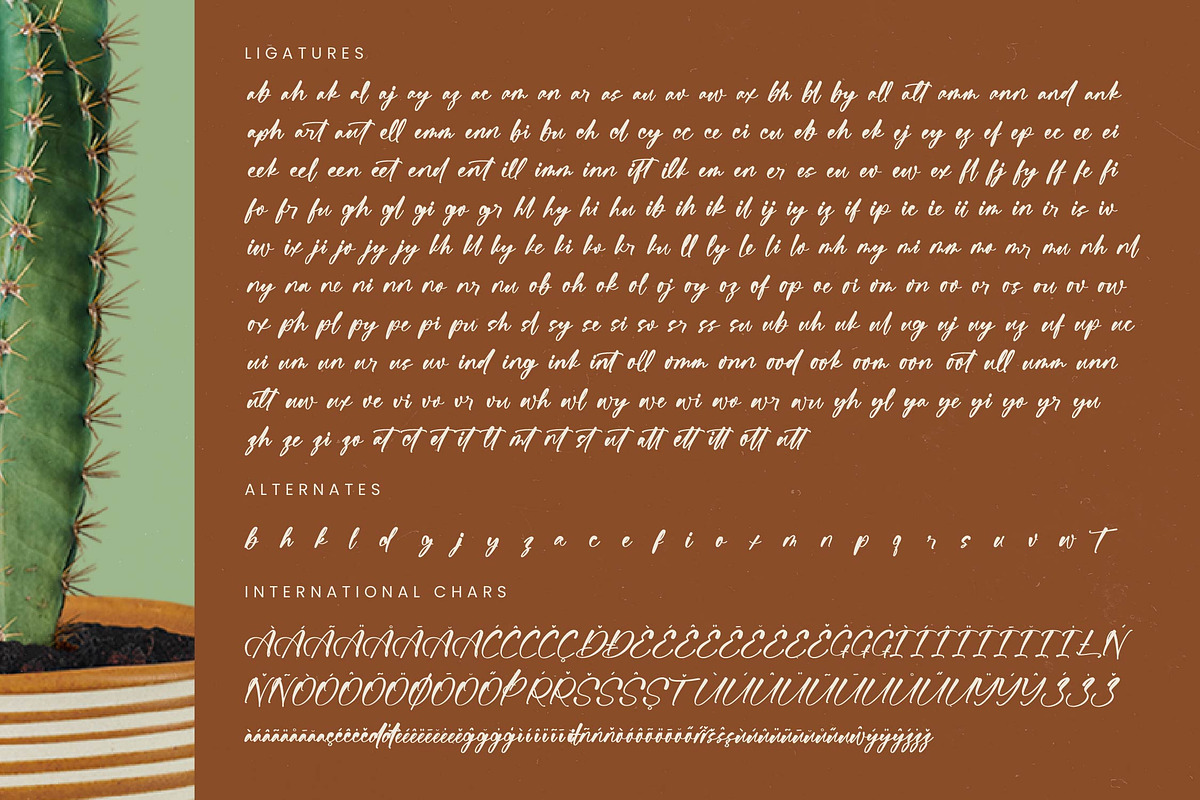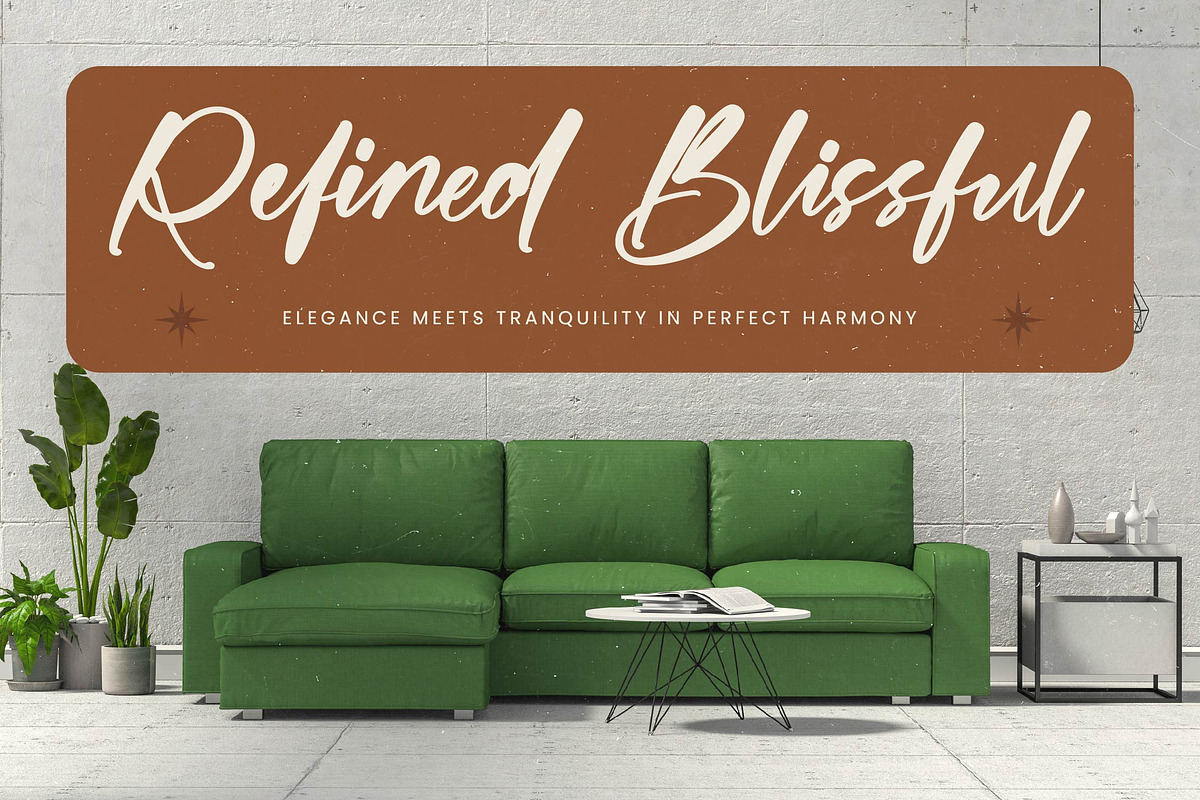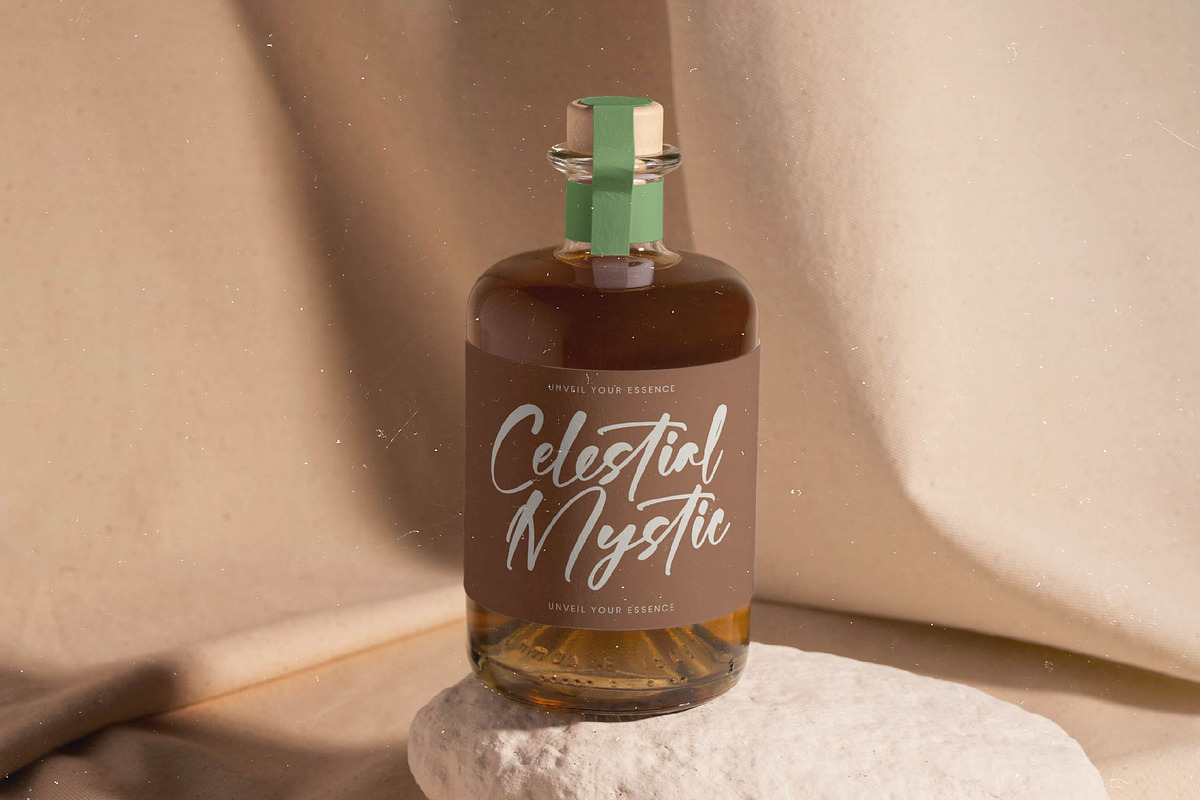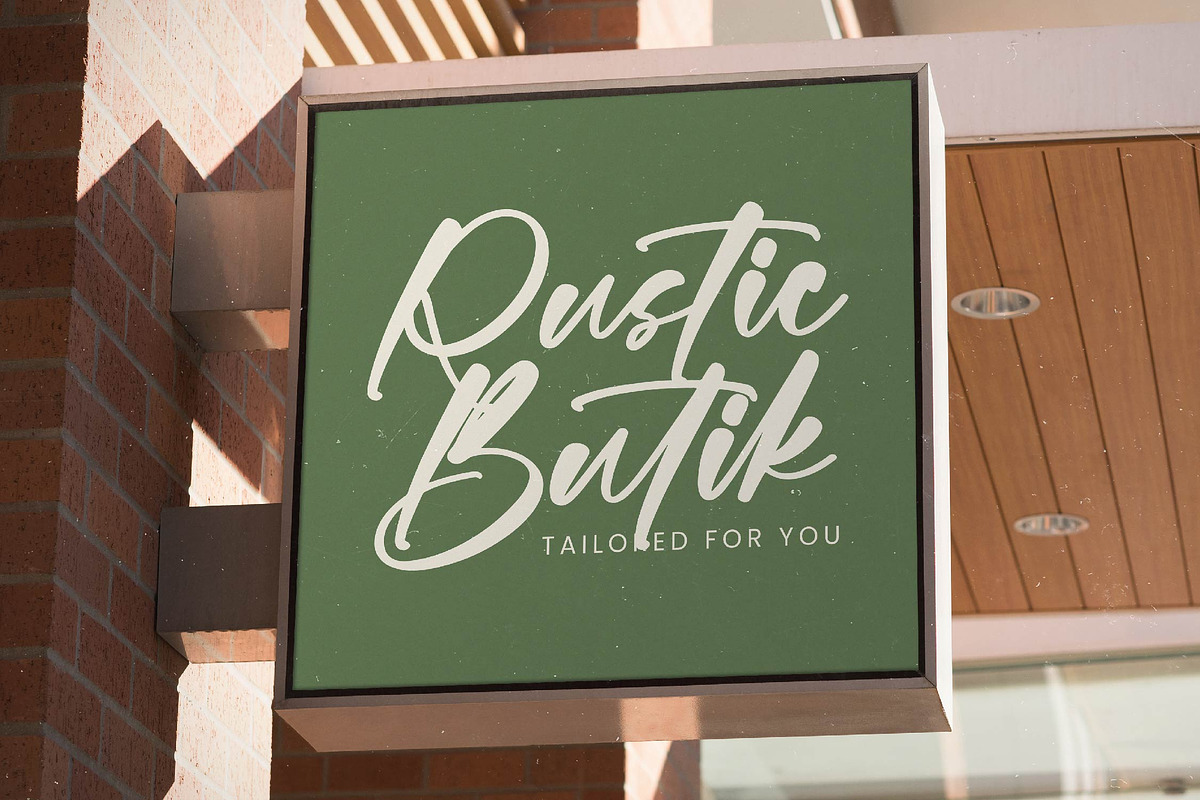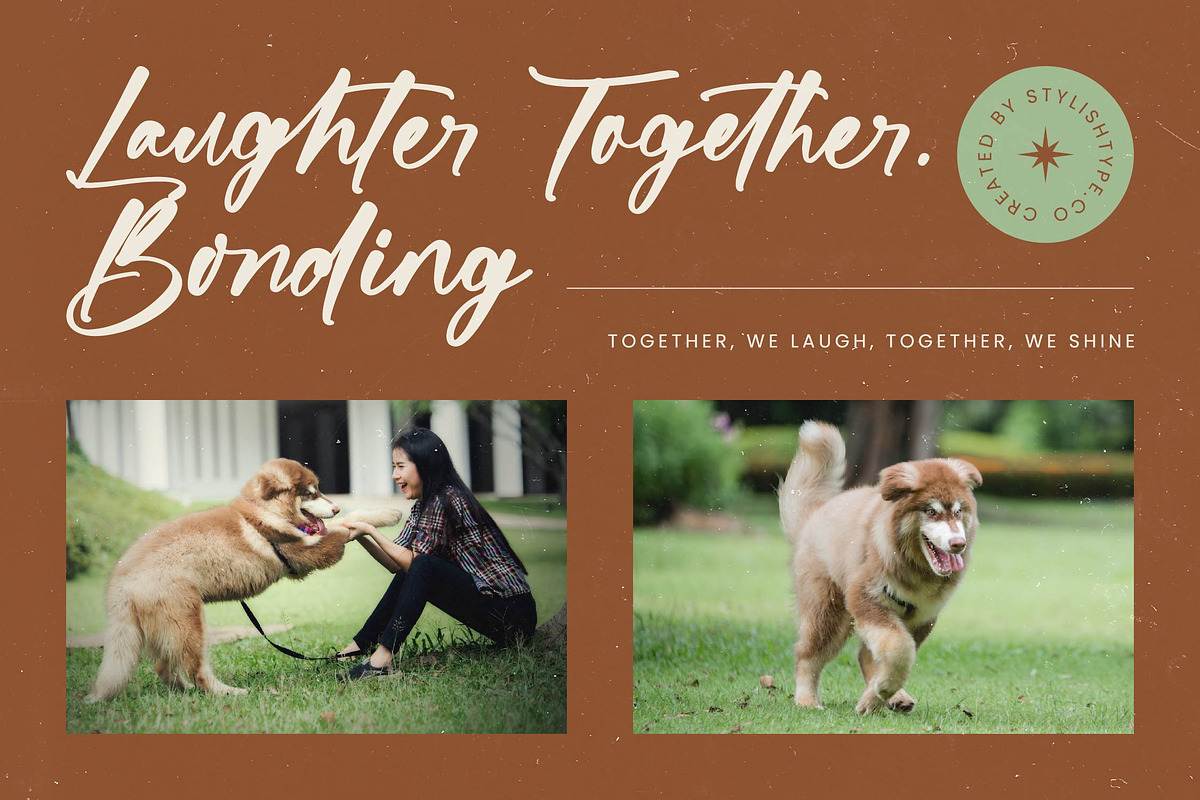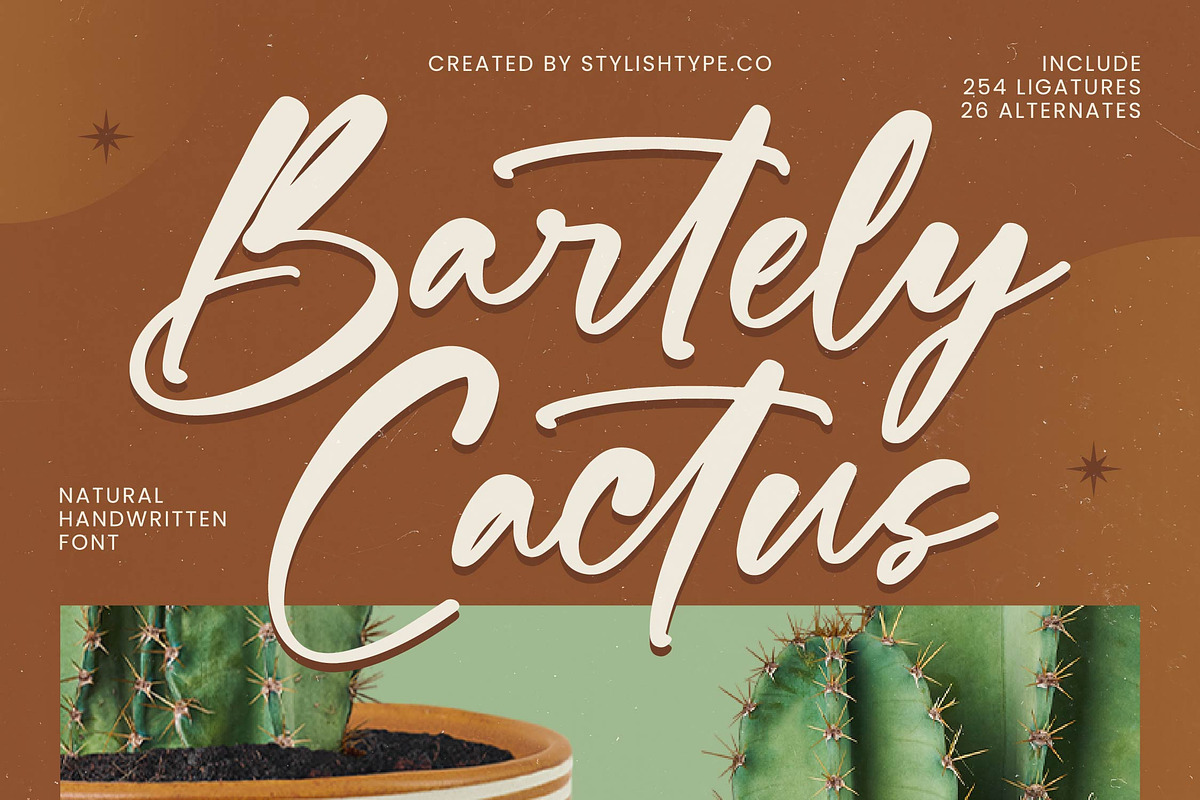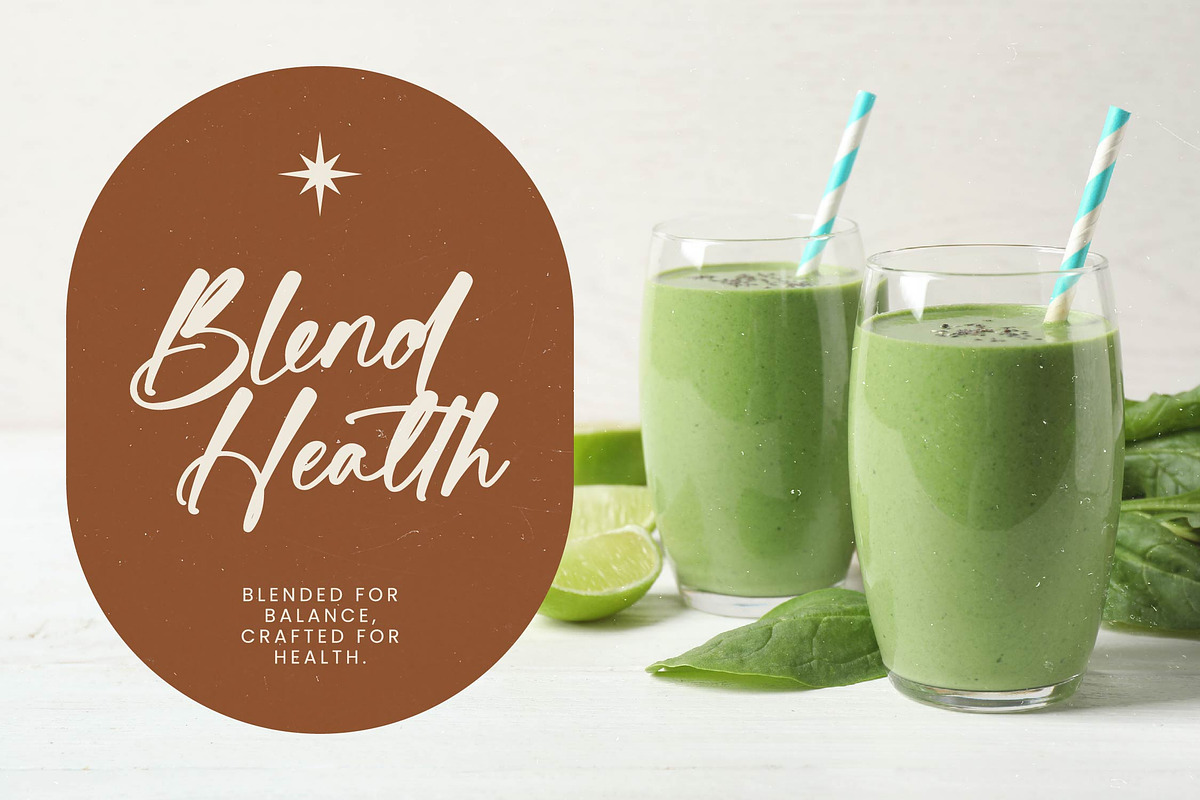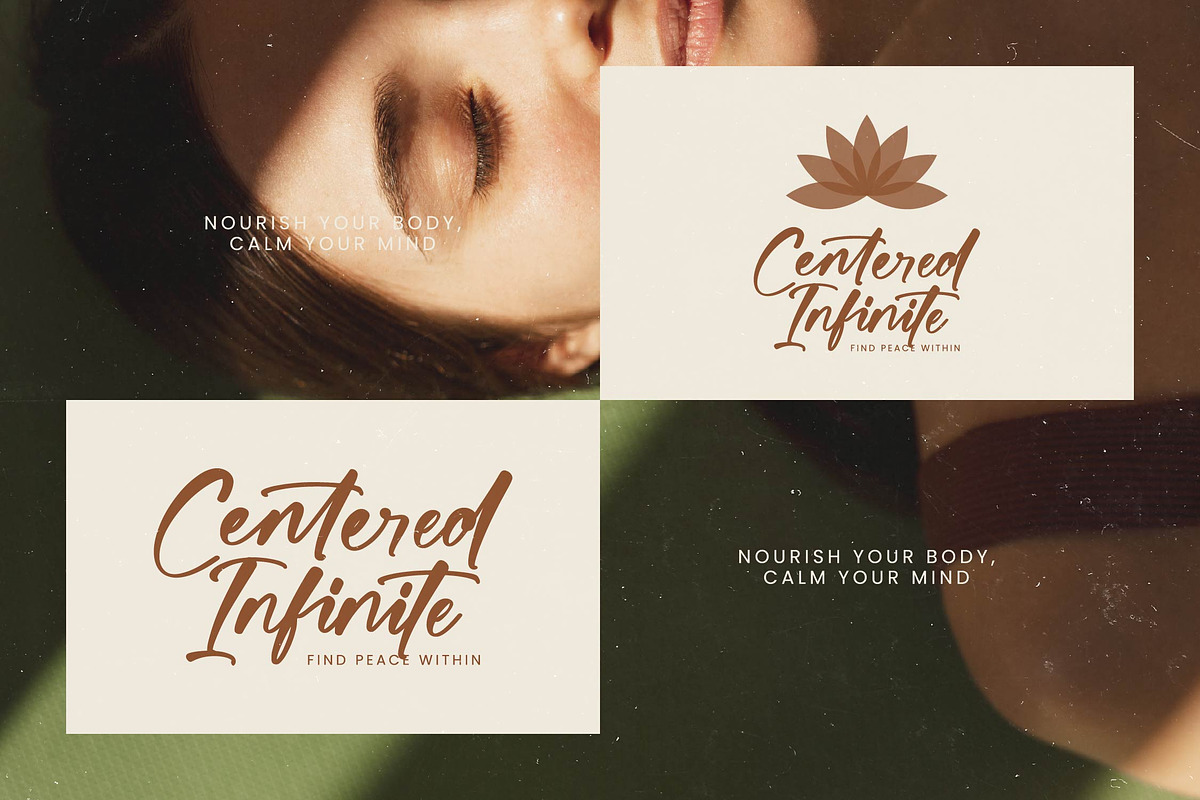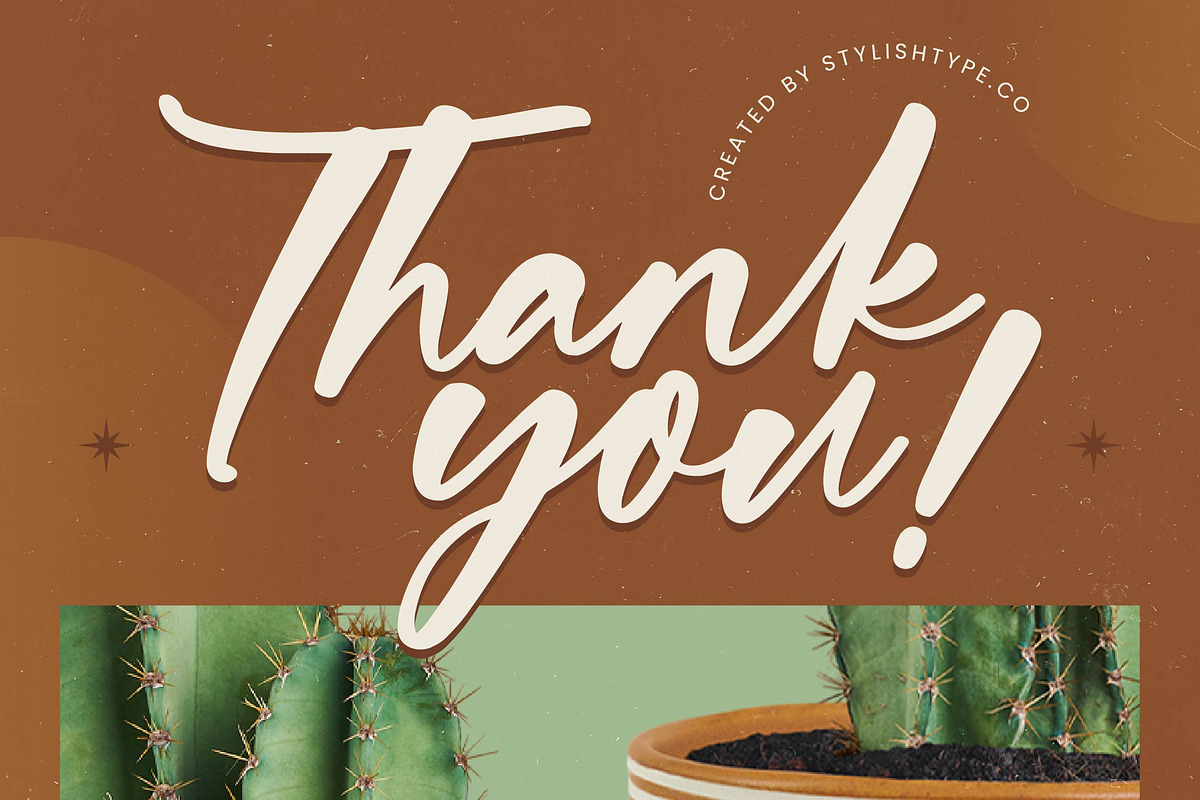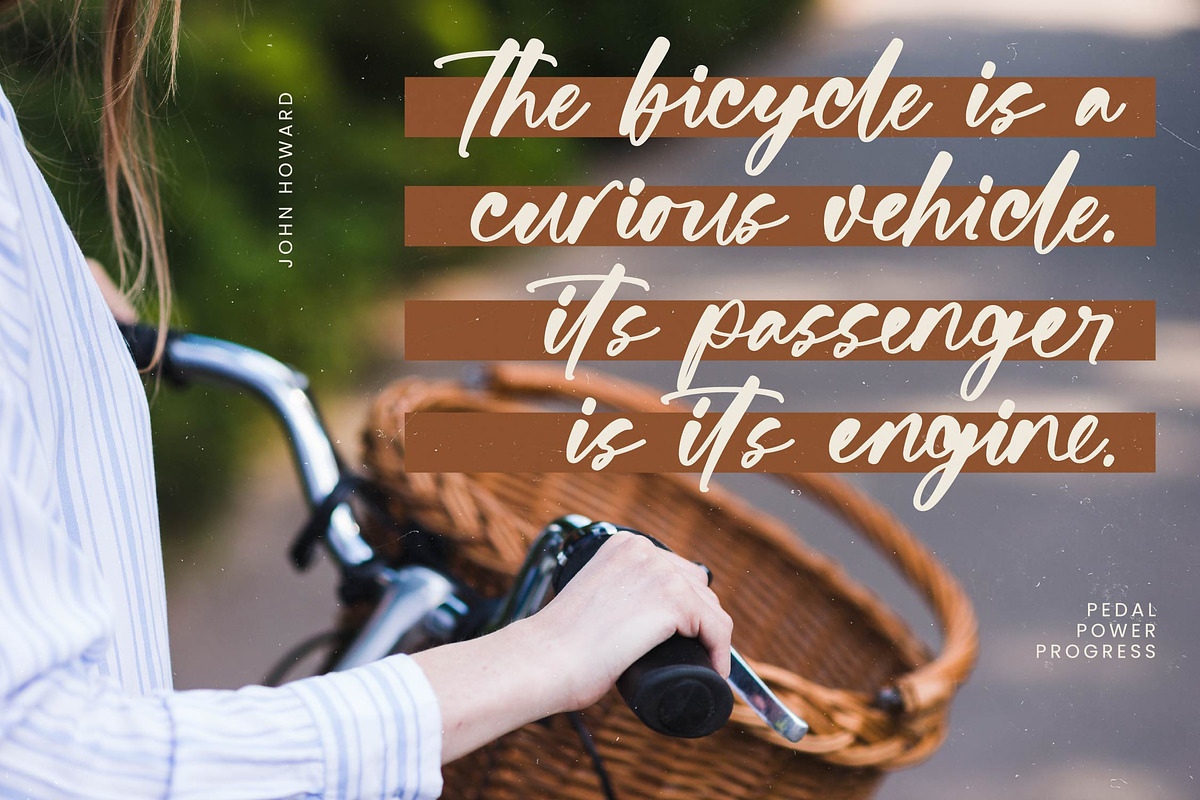
Bartely Cactus Natural Handwritten
Bartely Cactus - Natural Handwritten Font , from Stylishtype.Co , Suitable for any projects such as: logos, branding projects, homeware designs, product packaging, mugs, quotes, posters, shopping bags, t-shirts, book covers, name card, invitation cards, greeting cards, label, photography, watermark, special events, and all your other luxury and beautiful projects that need a Luxury Script taste.
- 254 Ligature 26 Alternates & Swashes